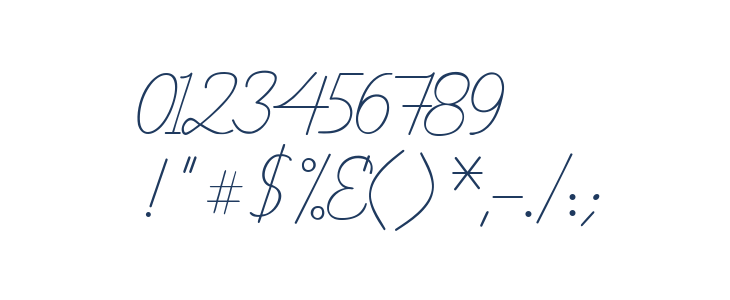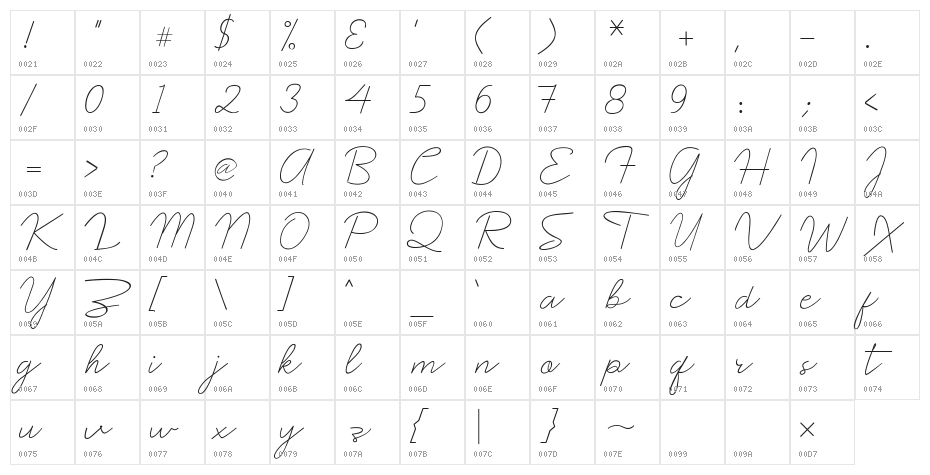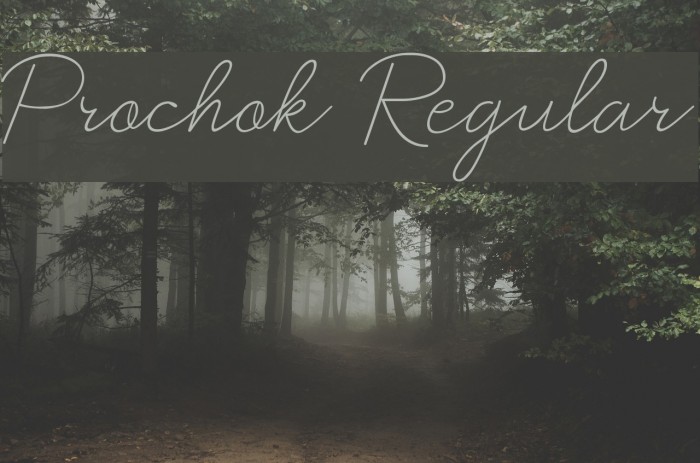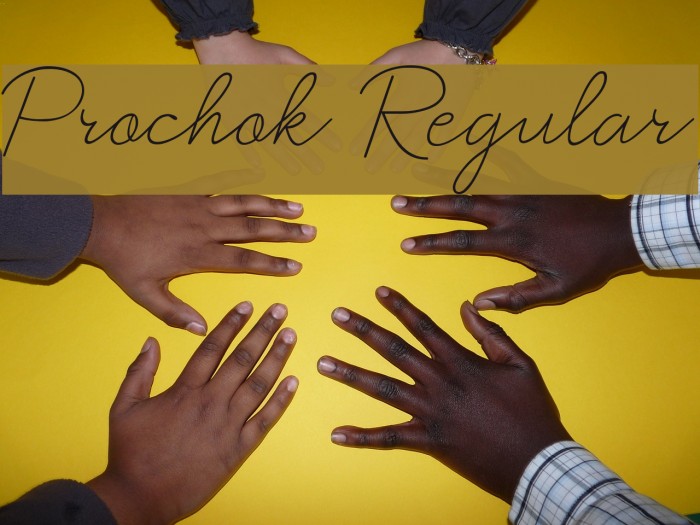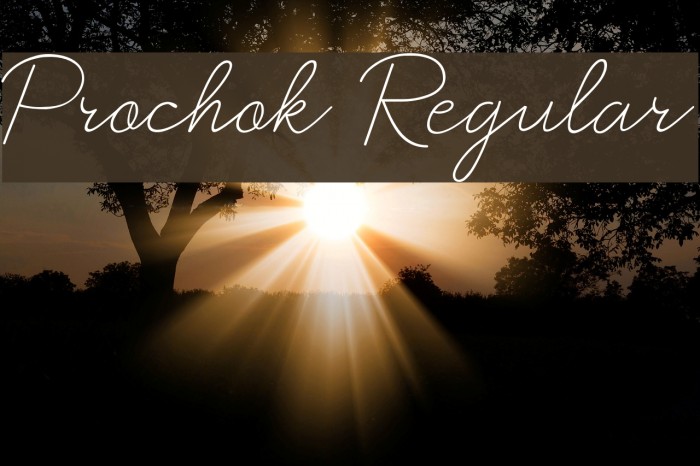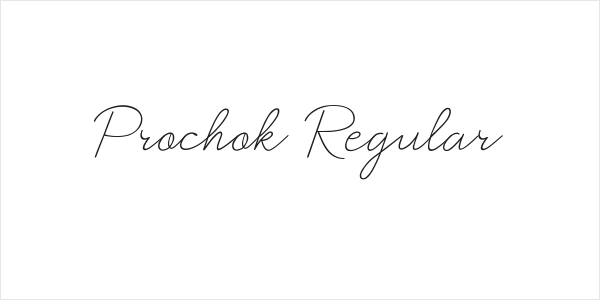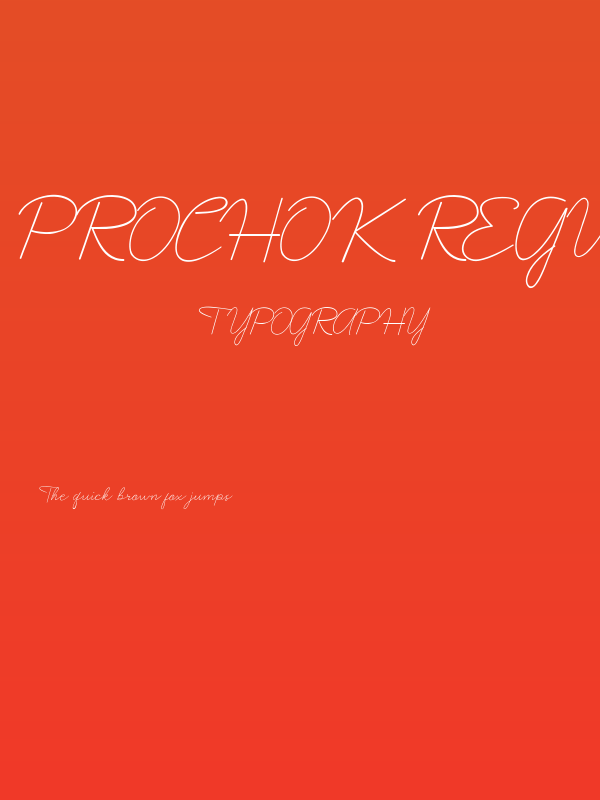
Prochok Regular Font
Prochok Regular Description
This font features a delicate and elegant script style with smooth, flowing lines that create a sense of movement and grace. The characters are connected, mimicking the fluidity of cursive handwriting, which adds a personal and sophisticated touch. The uppercase letters are slightly more ornate, with subtle flourishes that enhance their visual appeal. The lowercase letters maintain a consistent height, contributing to the font's readability. The numerals and special characters are designed to match the overall aesthetic, ensuring a cohesive look across all text elements. This font's thin strokes and gentle curves make it ideal for projects that require a touch of elegance and refinement.
| Use Case | Logos, Invitations, Stationery |
| Proposed Projects | Ideal for wedding invitations, elegant branding, personal stationery, and sophisticated logos. |